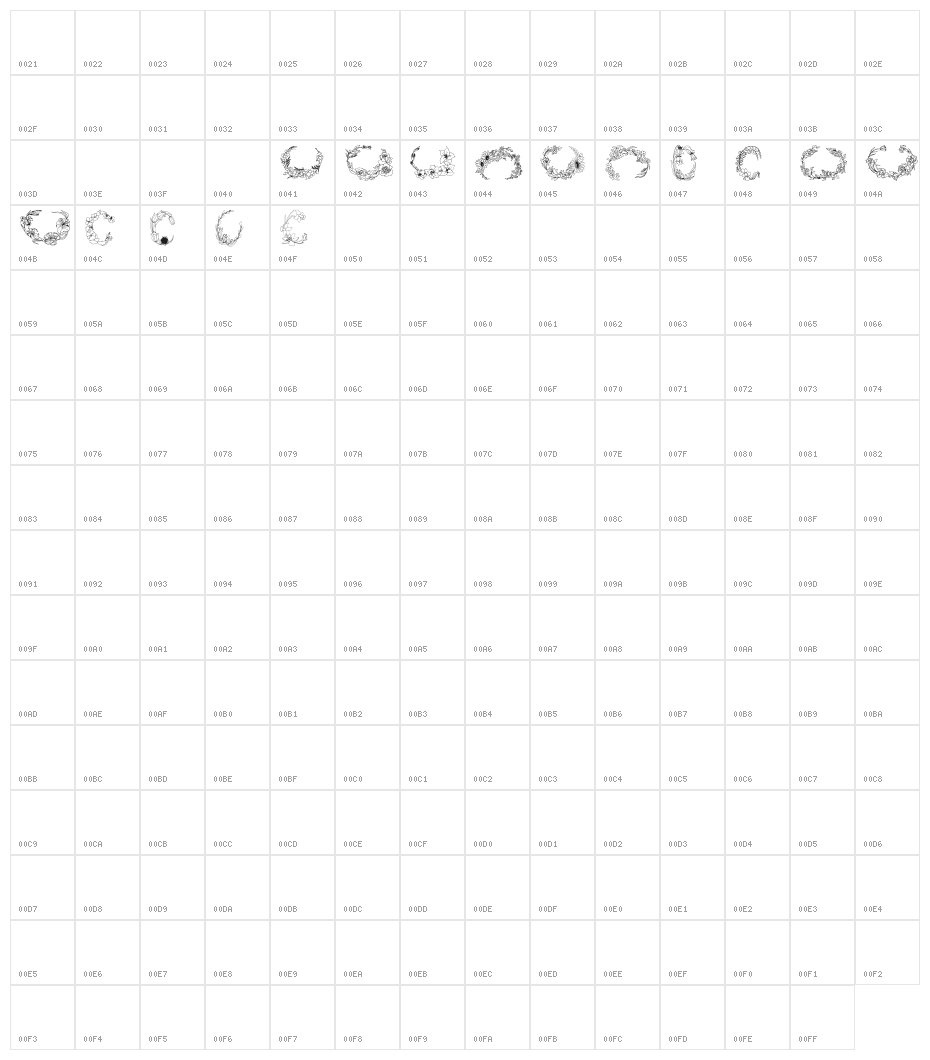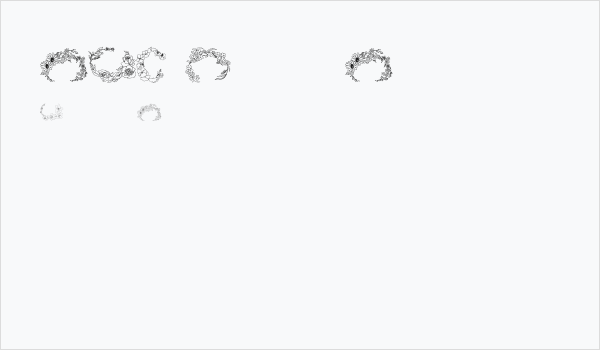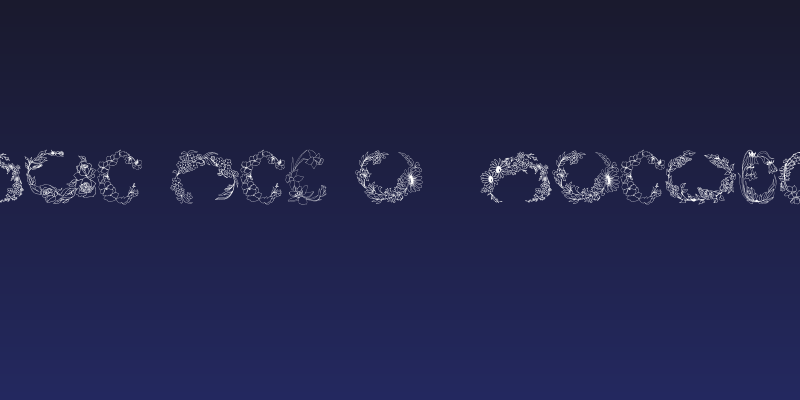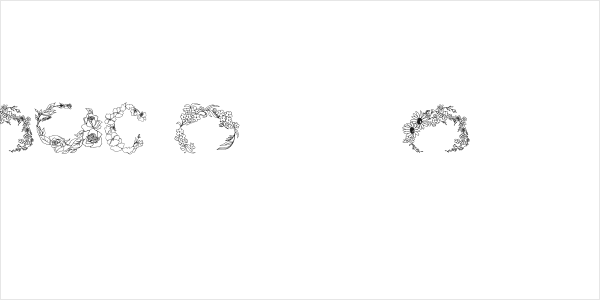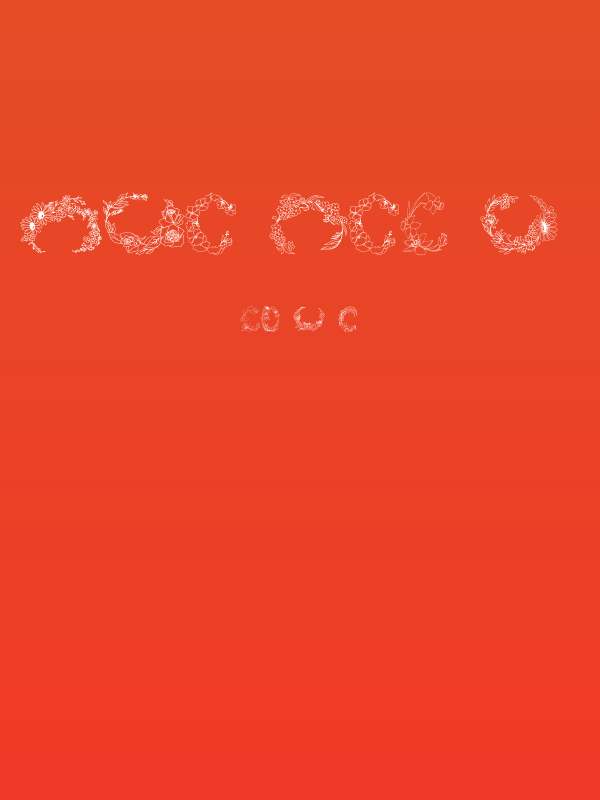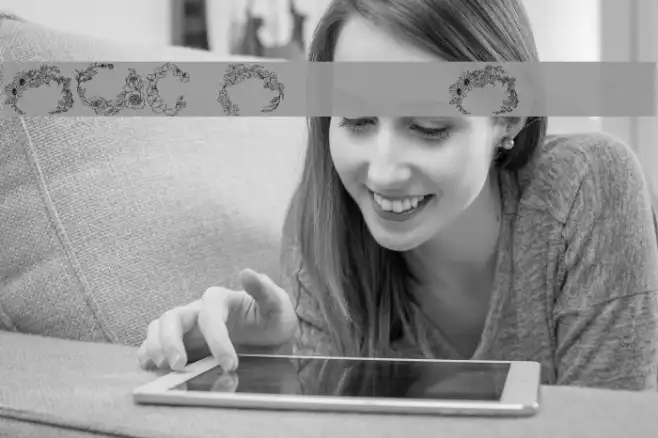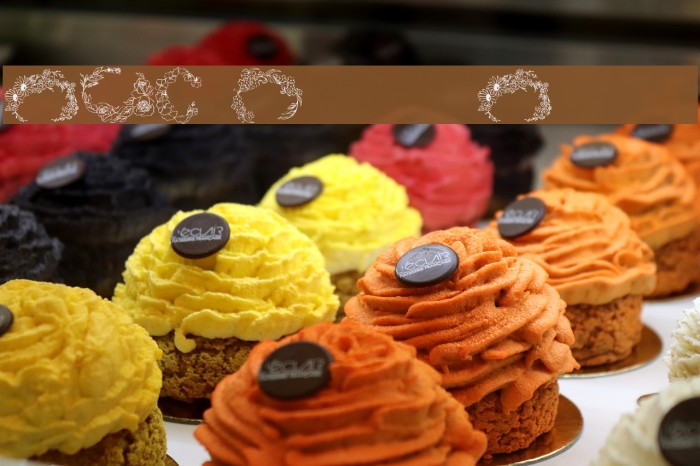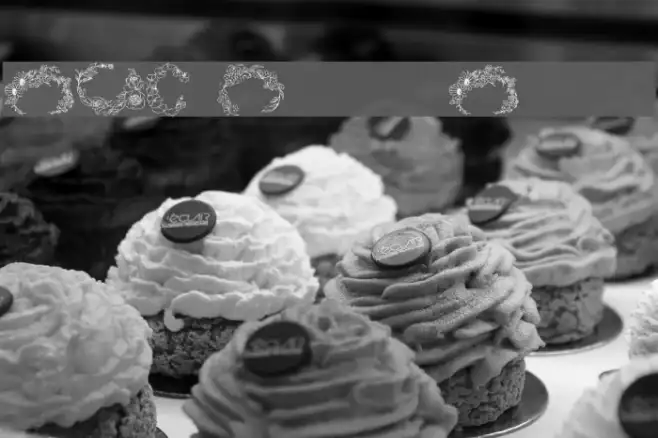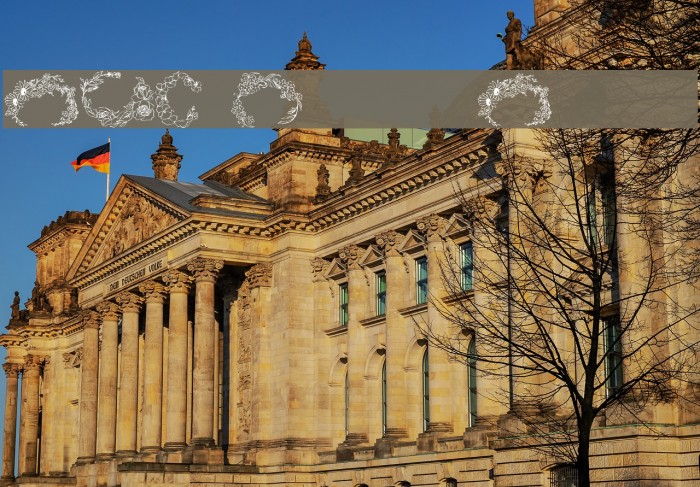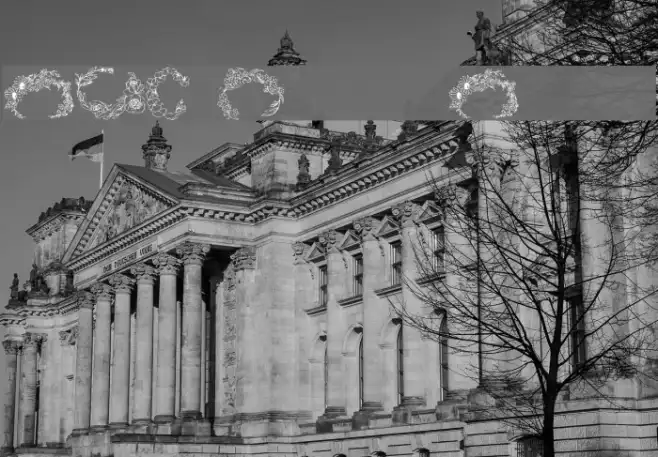
DBL Flower Delight Font
DBL Flower Delight Description
This font is a decorative and artistic typeface that incorporates intricate floral designs into each character. The letters are adorned with delicate flower motifs, creating an elegant and whimsical appearance. The overall design is highly detailed, with each letter featuring unique floral patterns that intertwine seamlessly. This font is perfect for projects that require a touch of nature-inspired beauty and creativity. Its elaborate style makes it ideal for decorative purposes, adding a sophisticated and artistic flair to any design.
| Proposed Projects | Ideal for wedding invitations, greeting cards, botanical-themed branding, and artistic posters. |